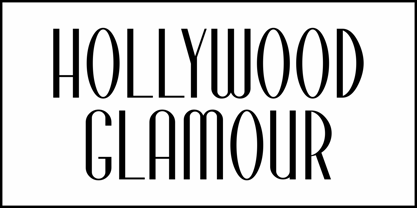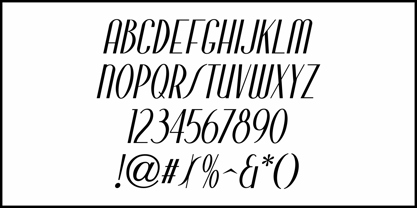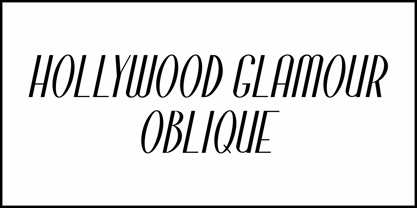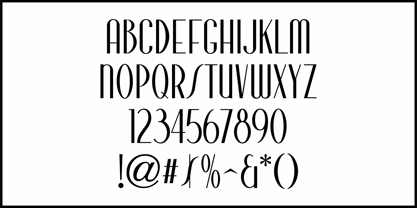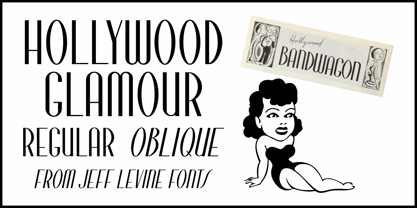
Hollywood Glamour JNL
by Jeff Levine
In the February, 1933 issue of The New Movie Magazine is a section called "Hollywood Bandwagon". The lettering for the word 'Bandwagon' was hand lettered in a condensed 'thick and thin' Art Deco type style.
This inspired Hollywood Glamour JNL, which is available in both regular and oblique versions.